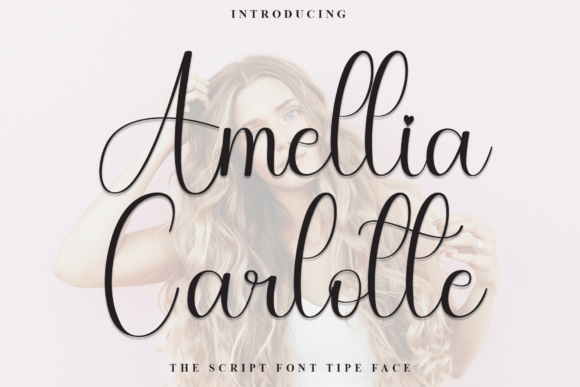
A Touch of Whimsy in Design
As designers, we’ve all been there – staring at a blank page, trying to bring a client’s vision to life. And then, it happens: a spark of creativity strikes, and we’re off on a journey of discovery. For those seeking a touch of elegance and romance in their designs, Amellia Carolle Font is the perfect companion.
This beautiful script font is designed to add a personal, handwritten touch to a wide range of creative projects, from wedding stationery to boutique logos and social media posts. With its delicate letterforms, soft curves, and charming heart accent, Amellia Carolle Font brings a sense of sophistication and playfulness to any design. Whether you’re a seasoned designer or just starting out, this font is a valuable addition to your toolkit – and a must-have for anyone looking to elevate their feminine branding and heartfelt designs.
Amellia Carlotte Font Key Features
- Unique Characteristics: Elegant script font with a mix of cursive and handwritten styles, perfect for invitations, wedding cards, and other formal events
- Kerning and Ligatures: Includes advanced kerning and ligature pairs for a more natural and polished look
Designer Review: Amellia Carlotte Font
Overall, I’m quite impressed with the Amellia Carlotte Font. It’s a beautiful script font that works well for a variety of purposes, from wedding invitations to branding materials. ✨
- Unique and elegant design: The Amellia Carlotte Font has a unique and elegant design that sets it apart from other script fonts. ✨
- High-quality glyphs: The font includes a wide range of glyphs, including ligatures and swashes, which make it perfect for creating beautiful and intricate designs. ✨
- Good legibility: Despite its elegant design, the font is still easy to read, making it perfect for both digital and print use. ✨
- Limited font weights: The Amellia Carlotte Font only comes in a few font weights, which may limit its versatility in certain designs. ⚠️
- No italic or bold styles: While the font has a beautiful script design, it only comes in regular style, which may not be ideal for certain applications. ⚠️
Overall, I think the Amellia Carlotte Font is a great addition to any designer’s toolkit. While it may have a few limitations, its unique design and high-quality glyphs make it a versatile and stylish choice for a variety of projects.
The Amellia Carlotte Font is commonly used for:
- Formal event branding and marketing materials.
- High-end product packaging and labels.
Alternatives to Amellia Carlotte Font
Great Vibes is a beautiful, elegant script font perfect for creating a sense of luxury and sophistication. It’s ideal for use in branding, invitations, and other high-end designs where a touch of elegance is required. Great Vibes has a more flowing and dynamic feel compared to Amellia Carlotte Font, which makes it suitable for headings and titles.
Lato is a modern sans-serif font that’s highly versatile and works well in a wide range of designs. It’s a great choice for body text, headings, and titles, and its clean lines and simple shapes make it easy to read. Lato is a more straightforward and minimalistic font compared to Amellia Carlotte Font, which makes it suitable for designs that require a clean and modern look.
Playfair Display is a luxurious, high-end serif font that’s perfect for creating a sense of opulence and sophistication. It’s ideal for use in branding, invitations, and other high-end designs where a touch of elegance is required. Playfair Display has a more ornate and decorative feel compared to Amellia Carlotte Font, which makes it suitable for headings and titles.
Does Amellia Carlotte support multilingual characters?
Yes, Amellia Carlotte supports a wide range of languages, including Latin, Cyrillic, Greek, and more. The font includes over 1,000 glyphs, ensuring that you can use it for designs in multiple languages.